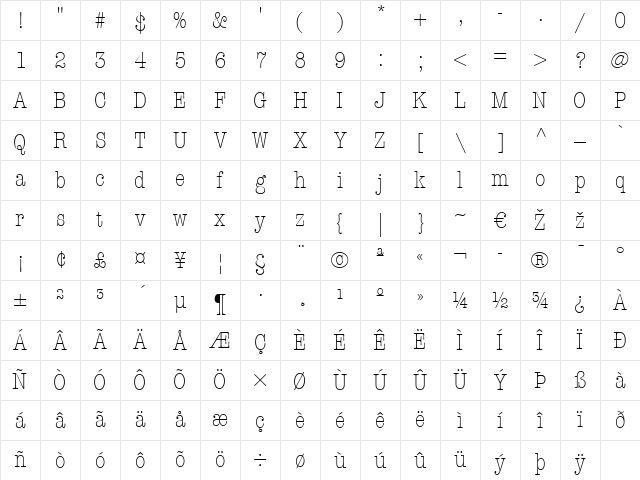
AmericanTypewriter LT LightCn Regular
Complete AmericanTypewriter LT LightCn Regular glyph index. Displaying only characters natively supported by AmericanTypewriter LT LightCn Regular font.
Design Context for AmericanTypewriter LT LightCn
AmericanTypewriter LT LightCn uses fixed-width spacing throughout, giving it the structured, systematic character associated with coding environments and technical documentation. Its slender proportions lend an understated elegance to any composition.